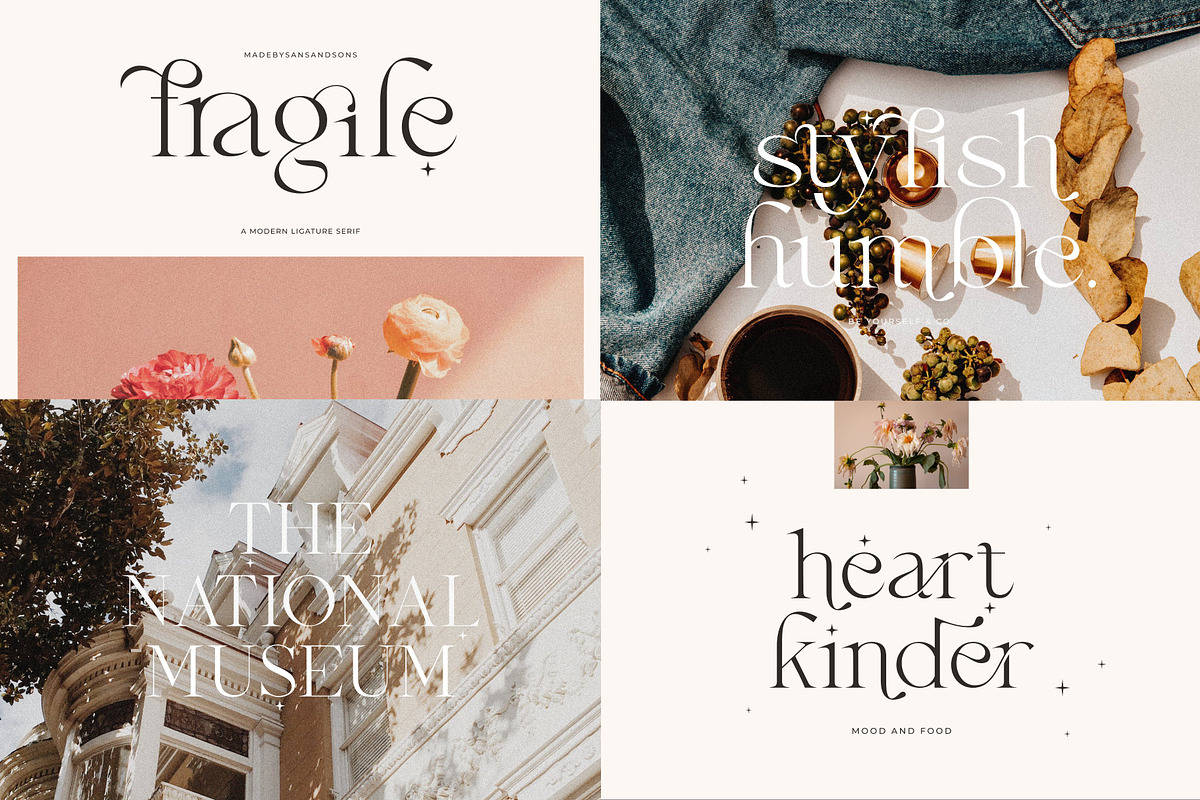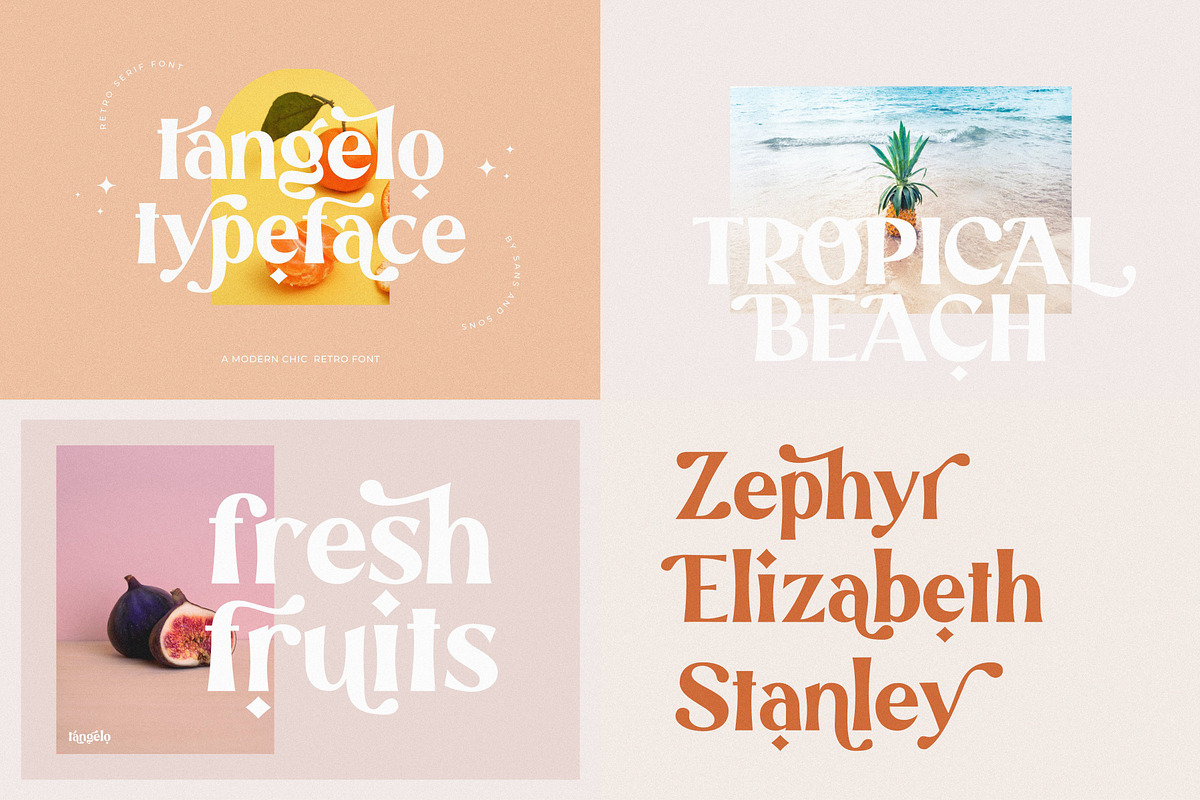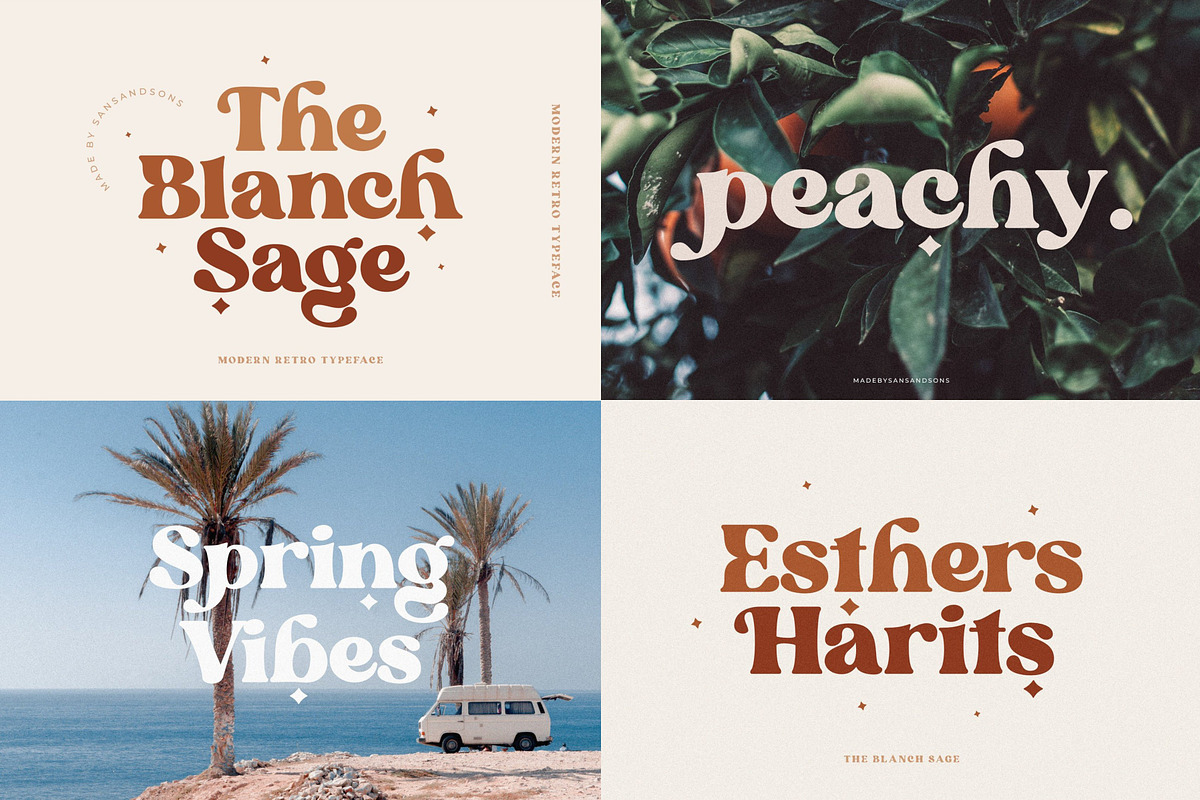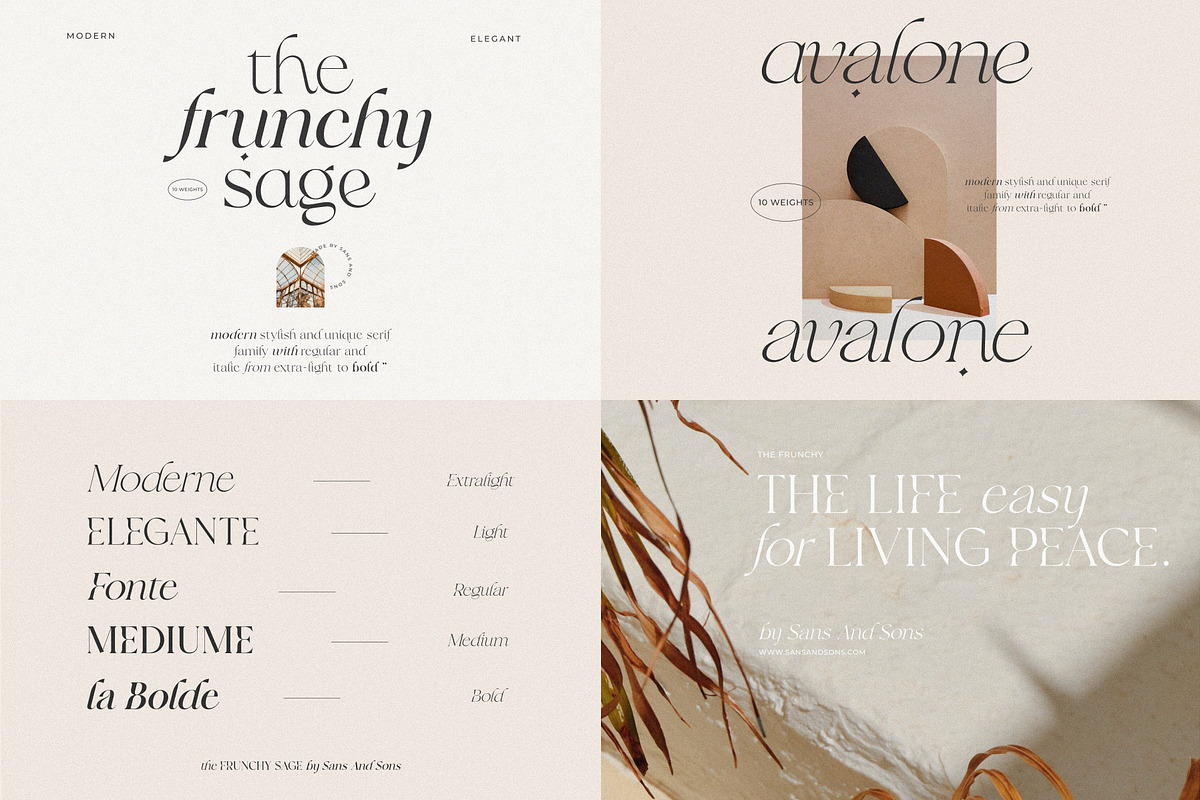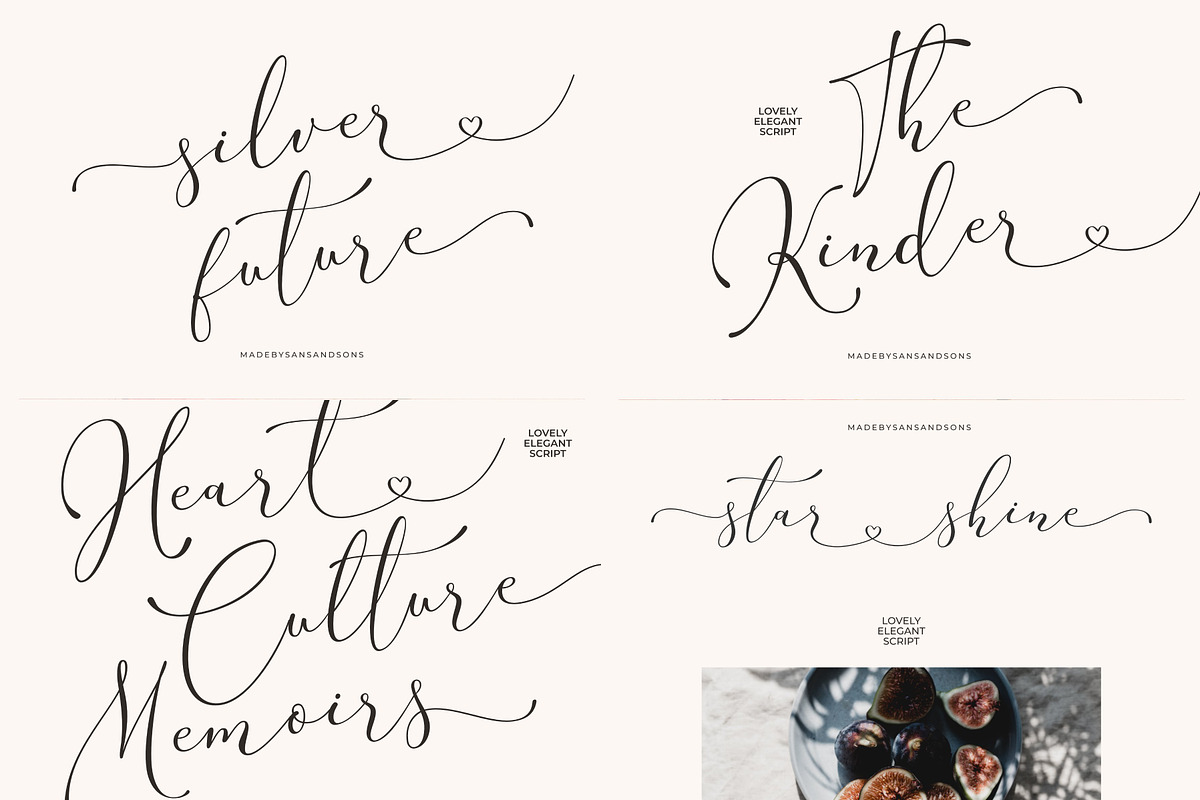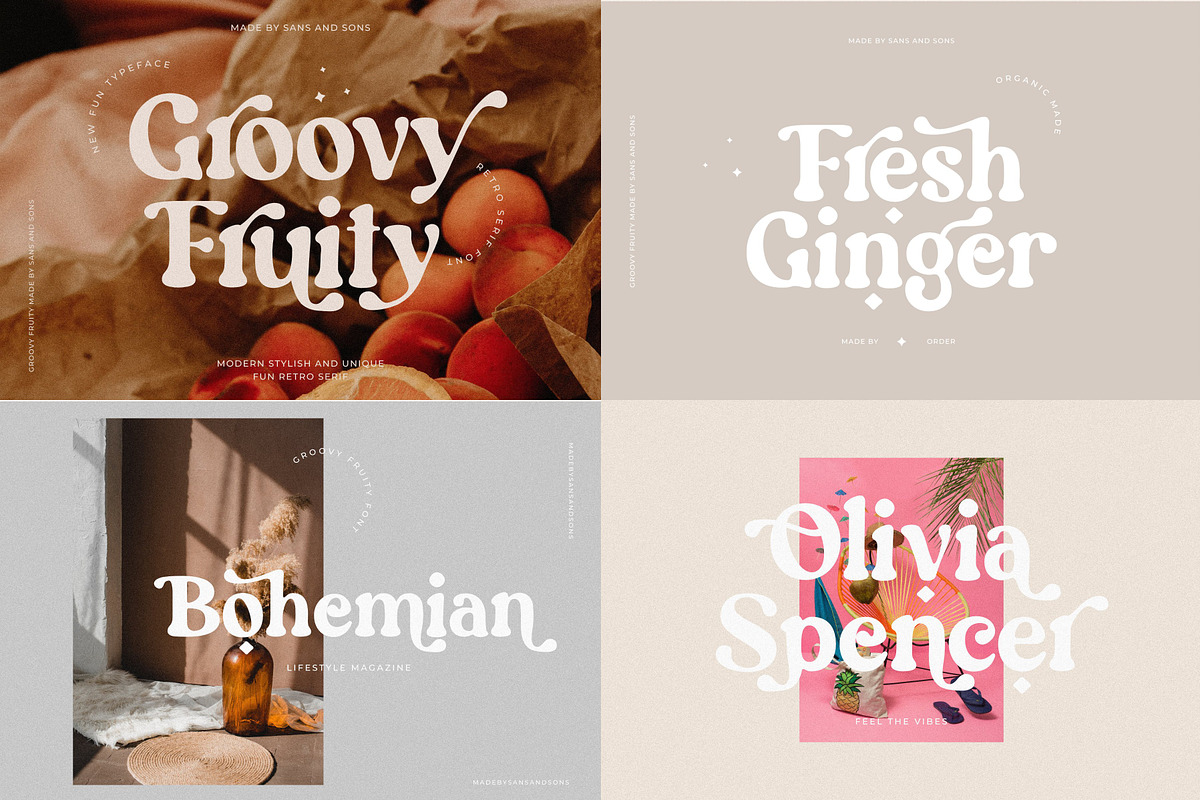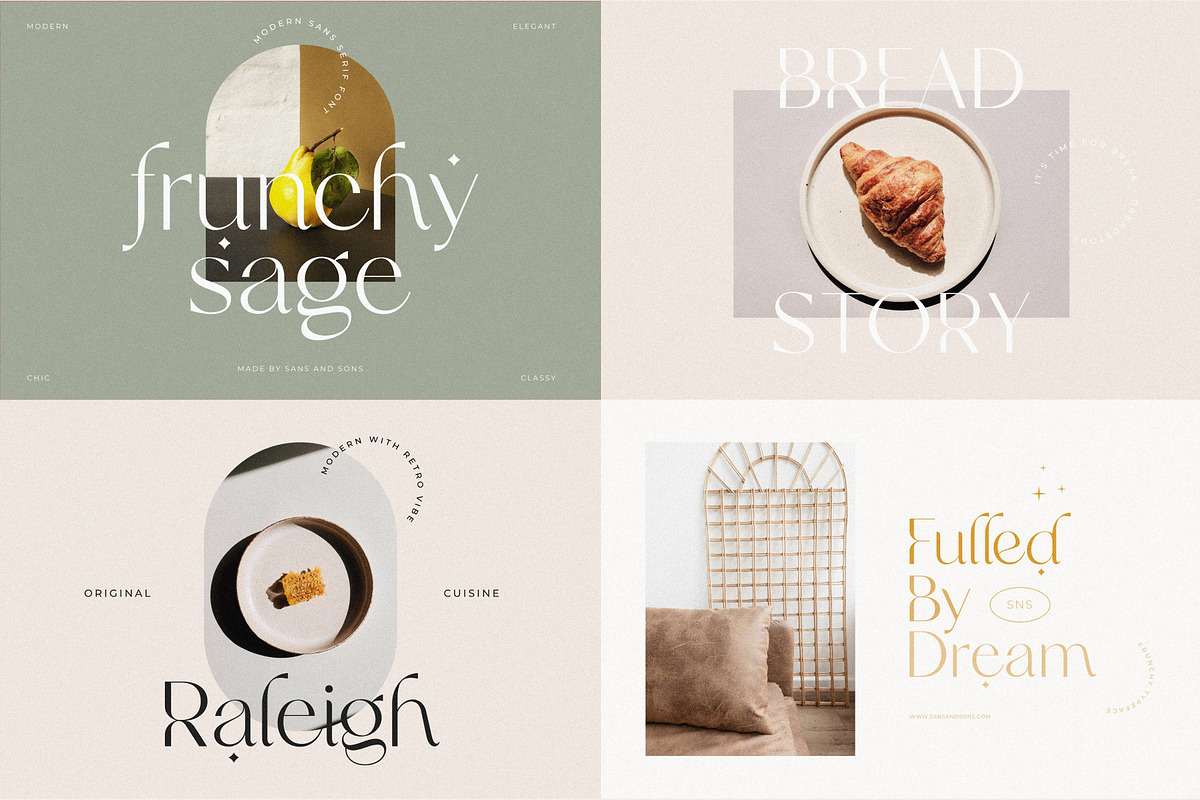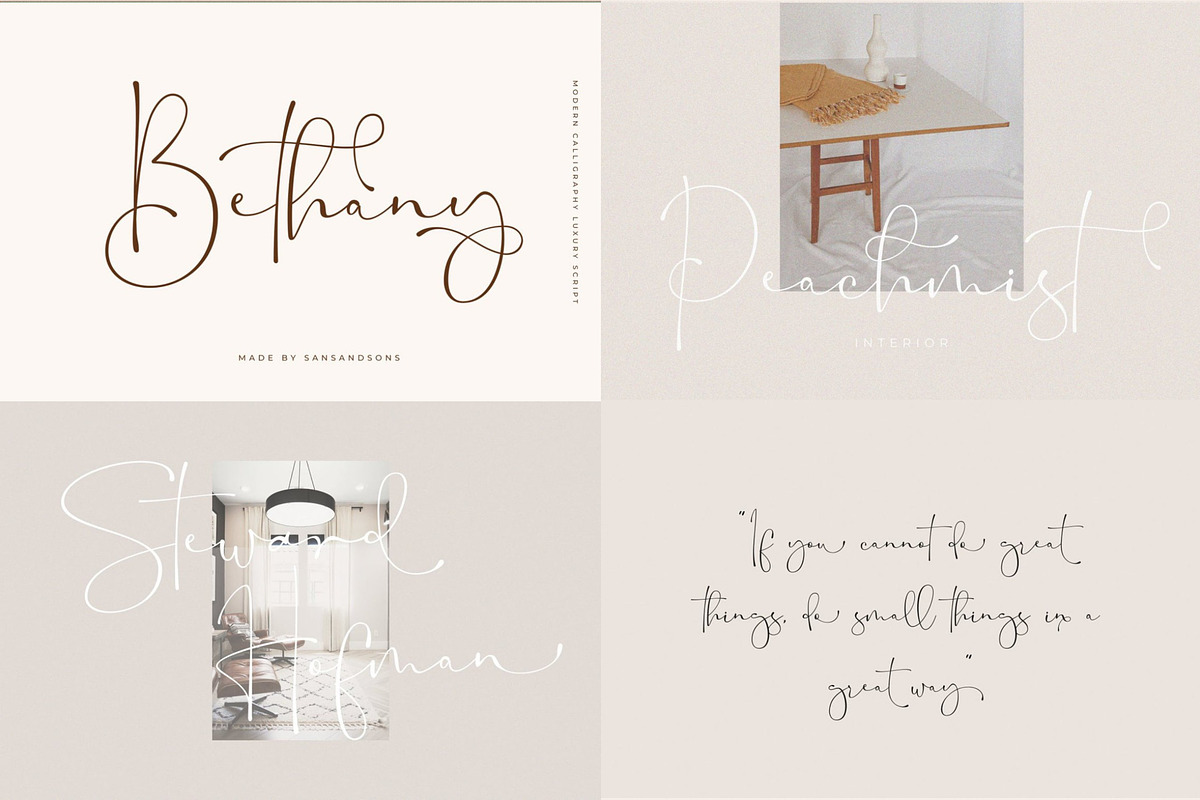
Modern Elegant Font Bundle 2
The Modern Elegant Font Bundle 2 by Sans & Sons
This bundle contains 19 typefaces including 10 high-quality font families. Our new best-selling fonts from Sans Serif, Serif, and Script Font all with modern elegant, and retro stylish looks. normal price $200 you can get only $29.
Fonts Included: